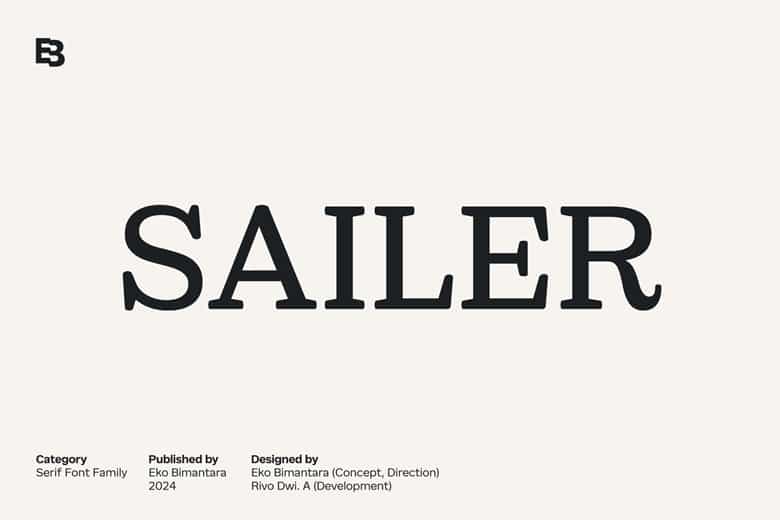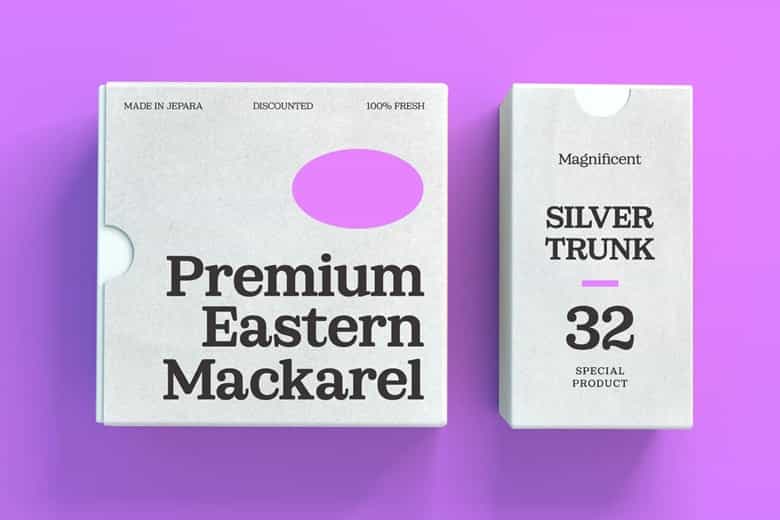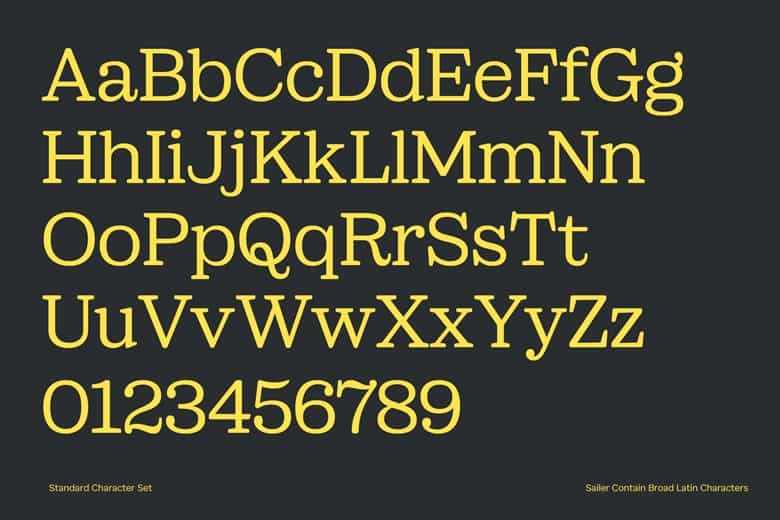
Sailer is a serif font family that has western, romance, elegance and retro feel to it in its design. Sailer is designed to work with unique, bold and classic styles, has tight Kerning, soft corners and a playful character that gives an extra touch of personality to any project. It has seven styles from Thin to Extra Bold with Italic and supports most Latin-based languages with the requirement of different designs.